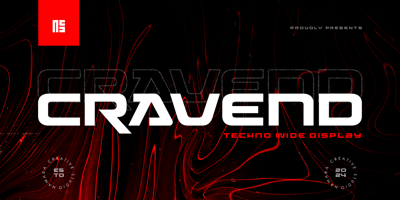
Cravend
Cravend font
Cravend Font Family was designed by Toni Setiawan and published by Namara Creative Studio. Cravend contains 1 styles and family package options. Cravend – Techno Wide Display FontsA modern and stylish typeface that is perfect for digital and techno-inspired designs. It is characterized by its wide and bold letterforms that give it a strong and powerful presence.This font is great for headlines, titles, branding, and logos that require a bold and modern look. is a great choice for any design project that needs to stand out from the crowd.Features : Strong, Wide & Techno Themed Display Typeface. Fresh & Modern Design. Alternates, Ligatures & Multilingual Support with PUA Encoded. Note :To be able to access ligatures and the alternate letters, please make sure the software you are using can support opentype features.